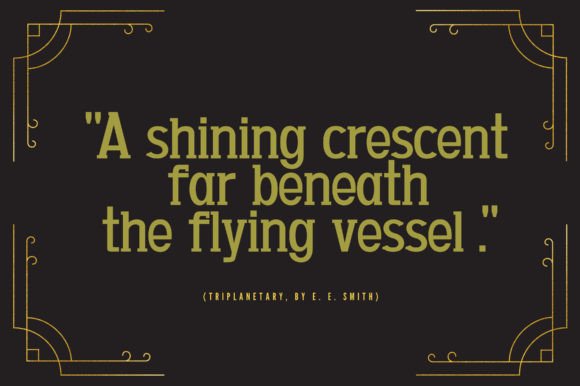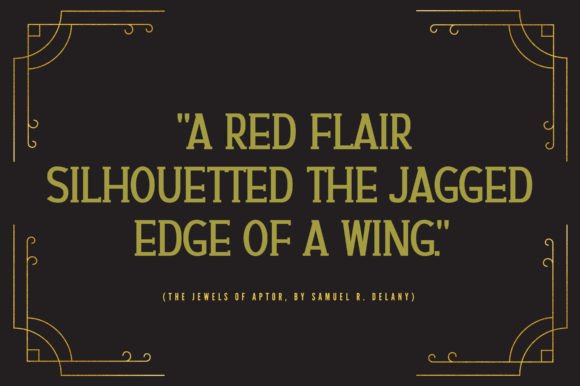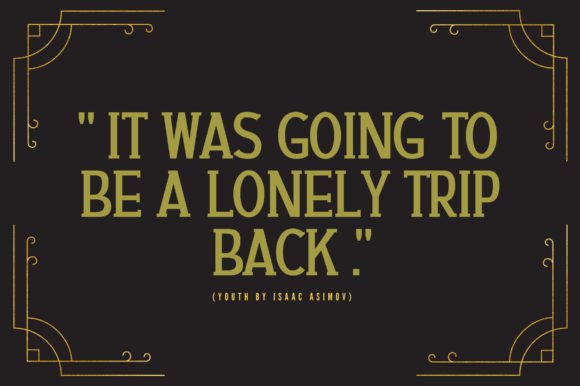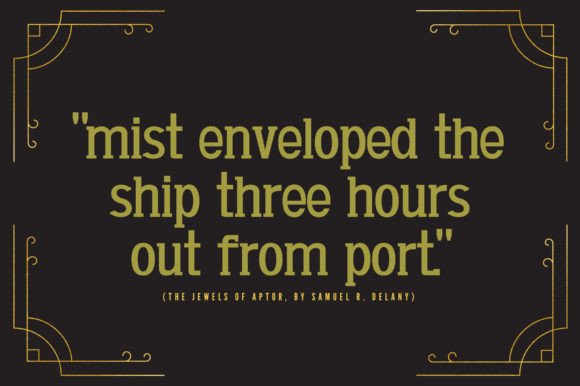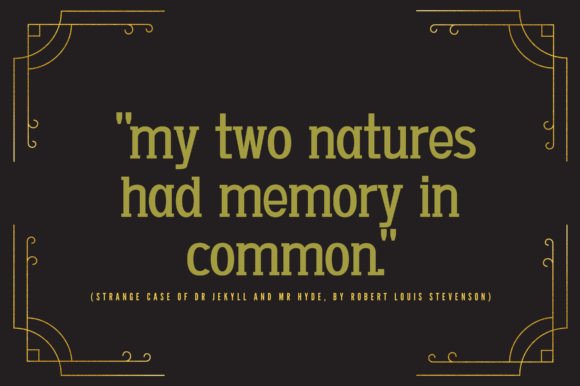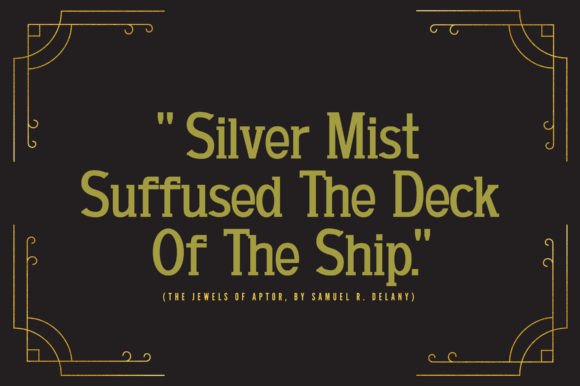
Introducing Augue Font: Elevate Your Designs with Elegance and Sophistication
In the world of typography, a well-chosen font can make all the difference in elevating your design from ordinary to extraordinary. If you’re a designer, crafter, or simply a creative enthusiast, you’re likely always on the lookout for fonts that can add a touch of elegance and sophistication to your projects. That’s where Augue Font comes in – a stunning, thick, elegant, and geometric slab serif typeface that’s sure to take your designs to the next level.
What is Augue Font?
Augue Font is a carefully crafted typeface that boasts a unique blend of thickness, elegance, and geometric precision. Its slab serif design gives it a distinctive look that’s both modern and timeless, making it an excellent choice for a wide range of design applications. Whether you’re working on a heading, body text, or anything in between, Augue Font is sure to make a lasting impression.
One of the standout features of Augue Font is its incredible versatility. This font isn’t limited to just one or two specific uses – it’s designed to be adaptable and can be used across a variety of mediums and projects. Here are just a few examples of how you can use Augue Font to elevate your designs:
- Headings and Body Texts: Augue Font’s clear, readable design makes it perfect for both headings and body texts. Its elegance and sophistication ensure that your content will stand out, whether it’s in a digital format or print.
- Packaging Design: Make your product packaging pop with Augue Font. Its thick, geometric lines give it a sturdy, high-quality feel that’s sure to grab attention on store shelves.
- Perfume and Cosmetics Design: The luxury and elegance of Augue Font make it an ideal choice for perfume and cosmetics branding. It adds a touch of sophistication and glamour to any product label or advertisement.
- Web Design: In the digital realm, Augue Font can be used to create stunning website headers, buttons, and even body text. Its geometric design ensures that it remains legible on a variety of screen sizes and resolutions.
- Magazine Covers: Augue Font can add a professional and stylish touch to magazine covers. Its ability to convey elegance and sophistication makes it perfect for fashion, lifestyle, and luxury publications.
Why Choose Augue Font?
With so many fonts available, why should you choose Augue Font for your next project? Here are a few compelling reasons:
- Unique Aesthetic: Augue Font offers a unique blend of thickness and elegance that’s hard to find in other typefaces. Its geometric slab serif design sets it apart from more traditional fonts.
- High Versatility: As mentioned earlier, Augue Font can be used across a wide range of design applications. Its adaptability makes it a valuable addition to any designer’s toolkit.
- Enhanced Readability: Despite its thick lines, Augue Font remains highly readable, even at smaller sizes. This makes it perfect for both headings and body text.
- Easy to Pair: Augue Font can be easily paired with other fonts to create stunning contrast and visual interest in your designs.
Augue Font is more than just a typeface – it’s a design tool that can help you create stunning, professional-grade designs with ease. Its unique blend of thickness, elegance, and geometric precision makes it perfect for a wide range of applications, from packaging and perfume design to web design and magazine covers. By incorporating Augue Font into your creative workflow, you’ll be able to add a touch of sophistication and elegance to your projects, setting them apart from the ordinary and making them truly unforgettable.